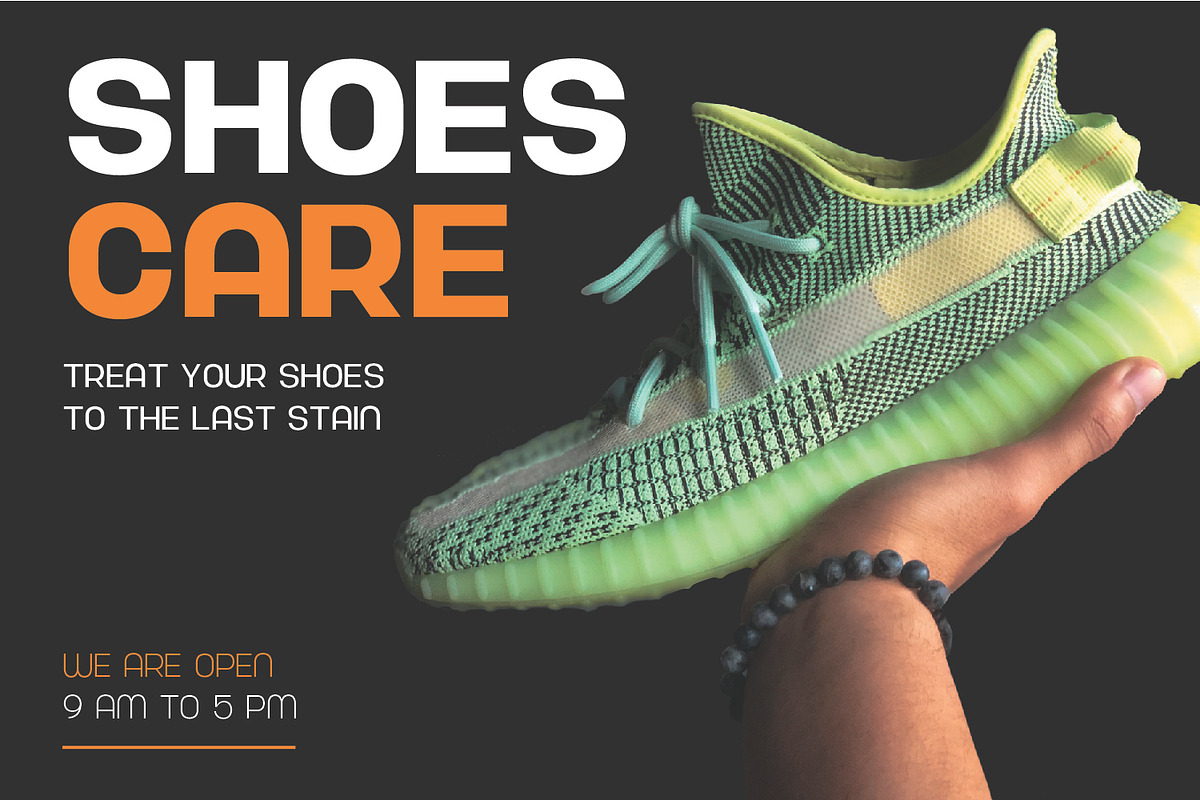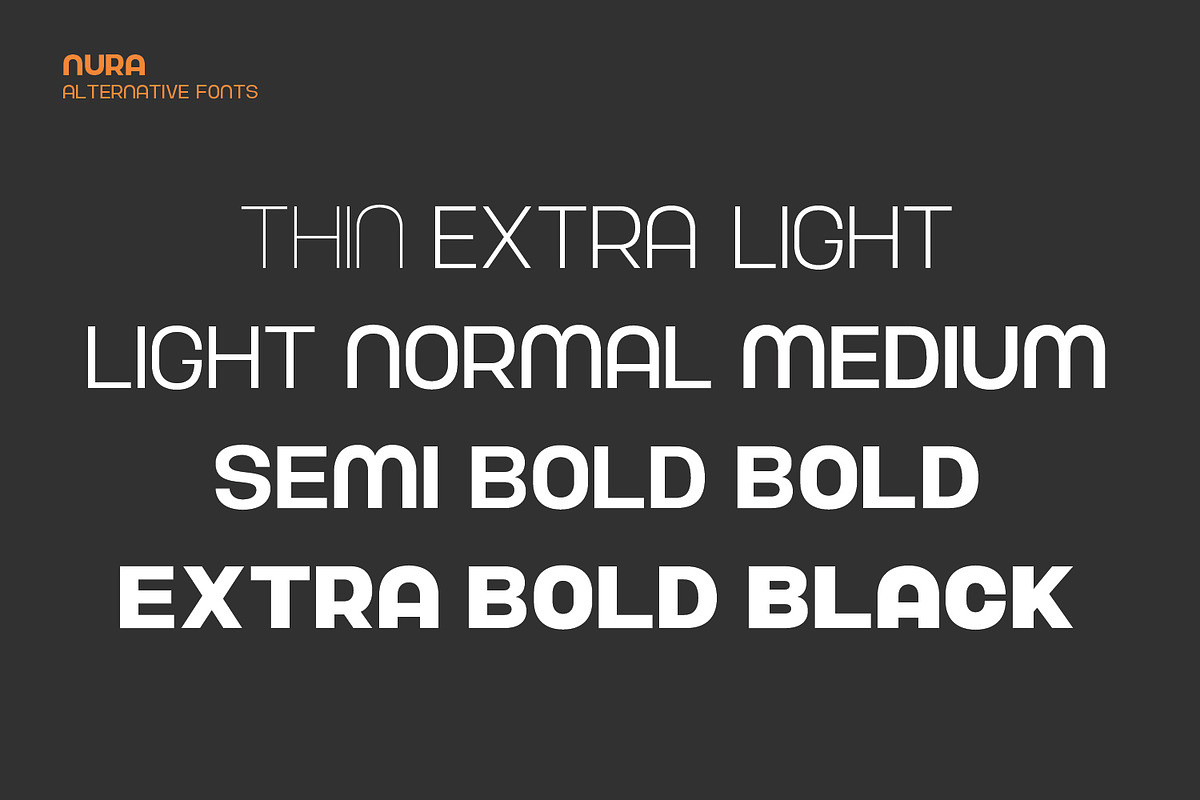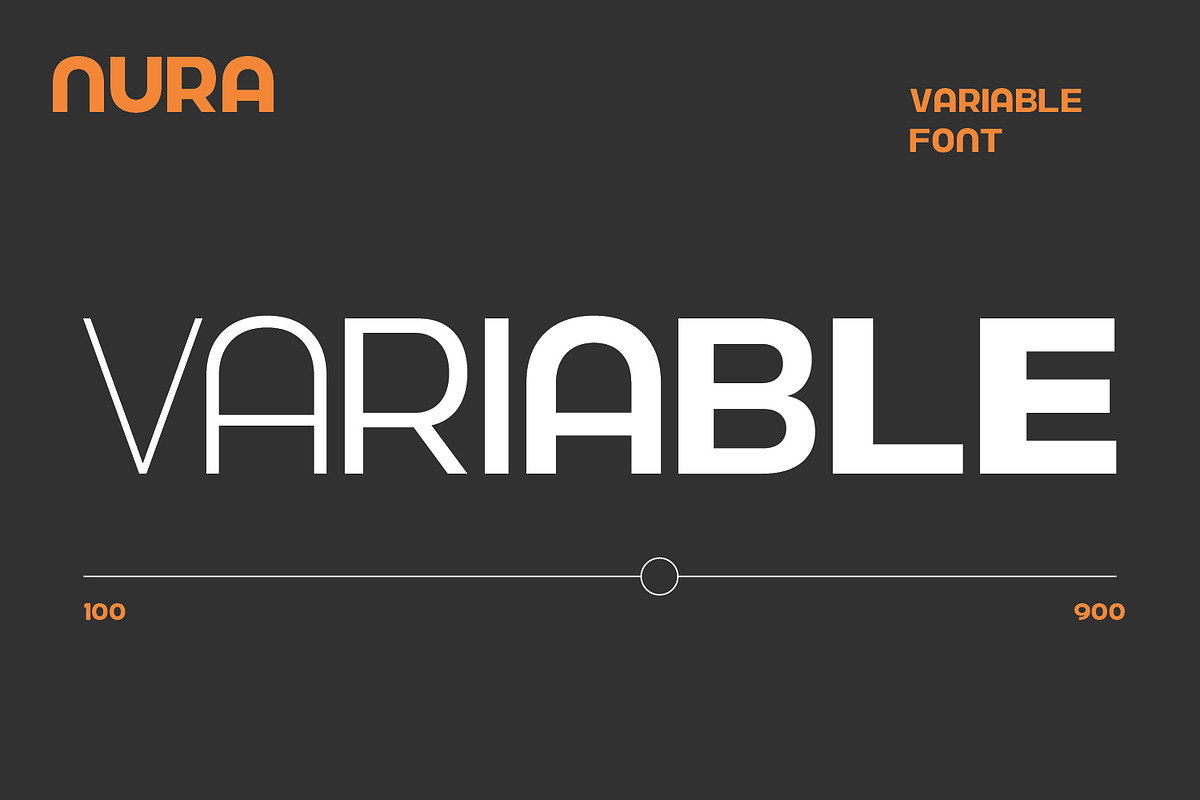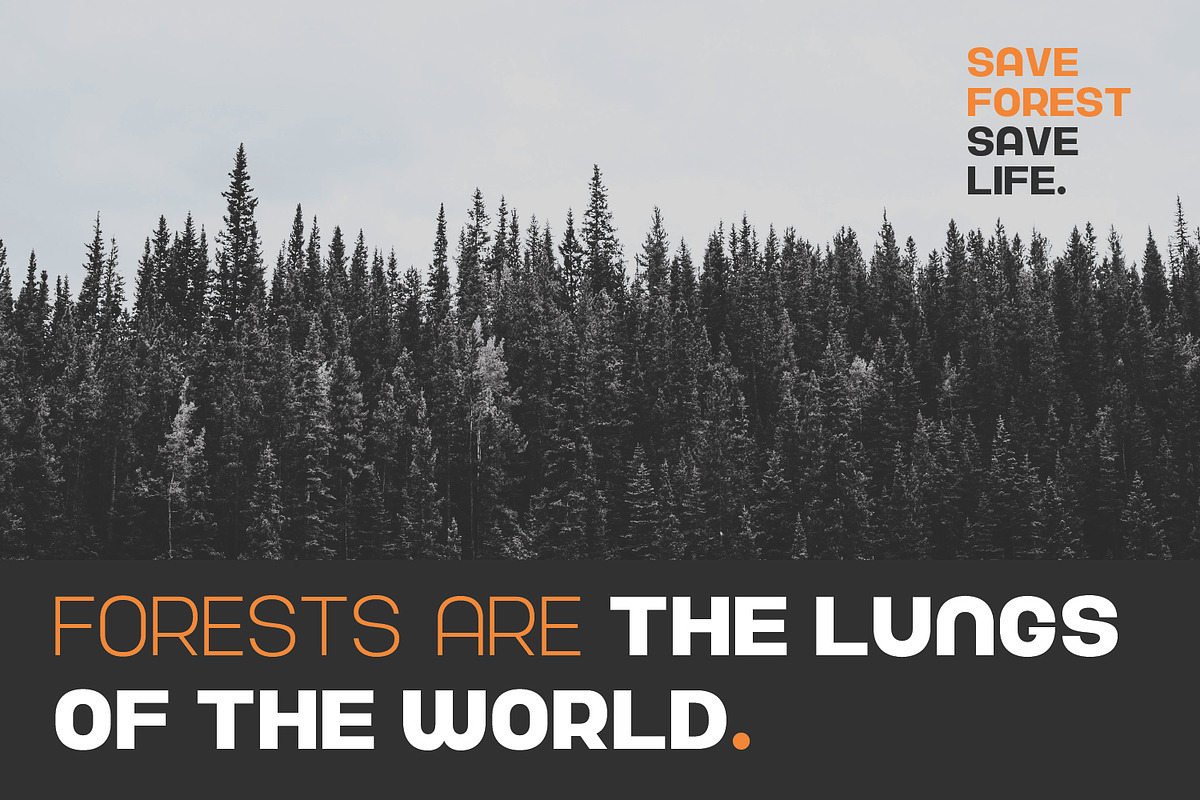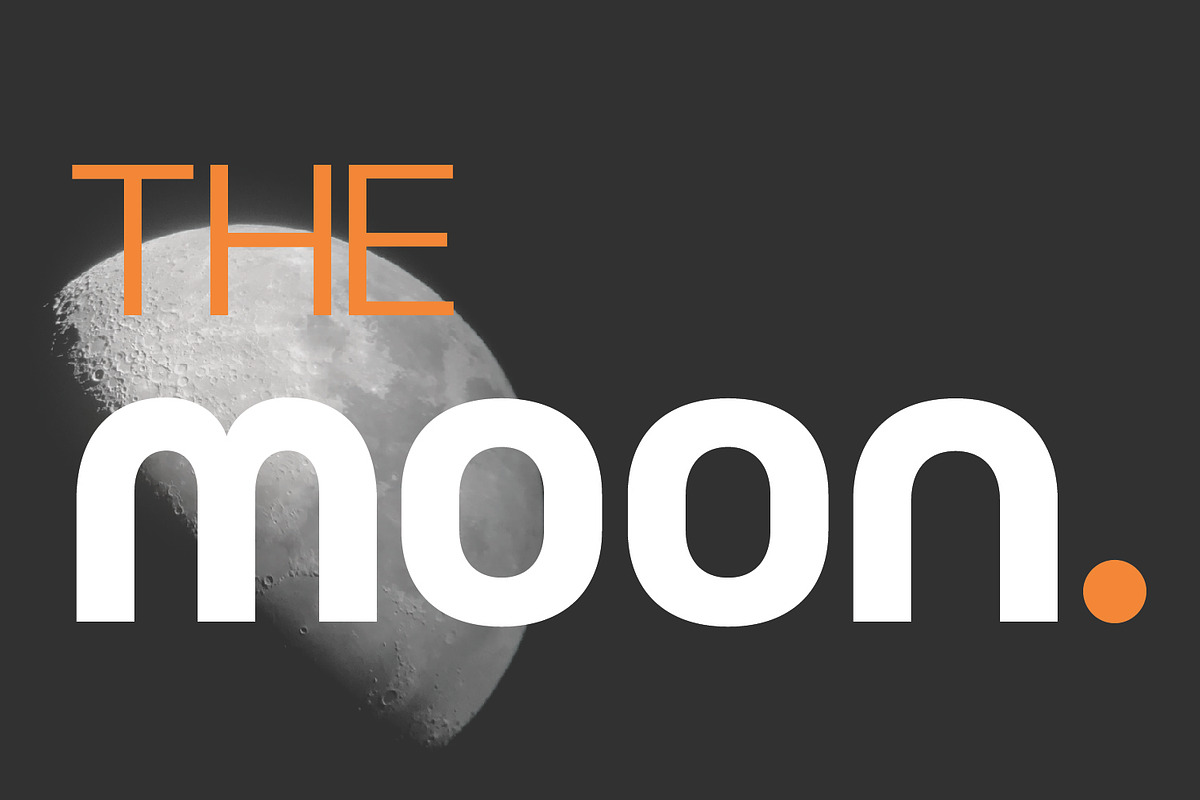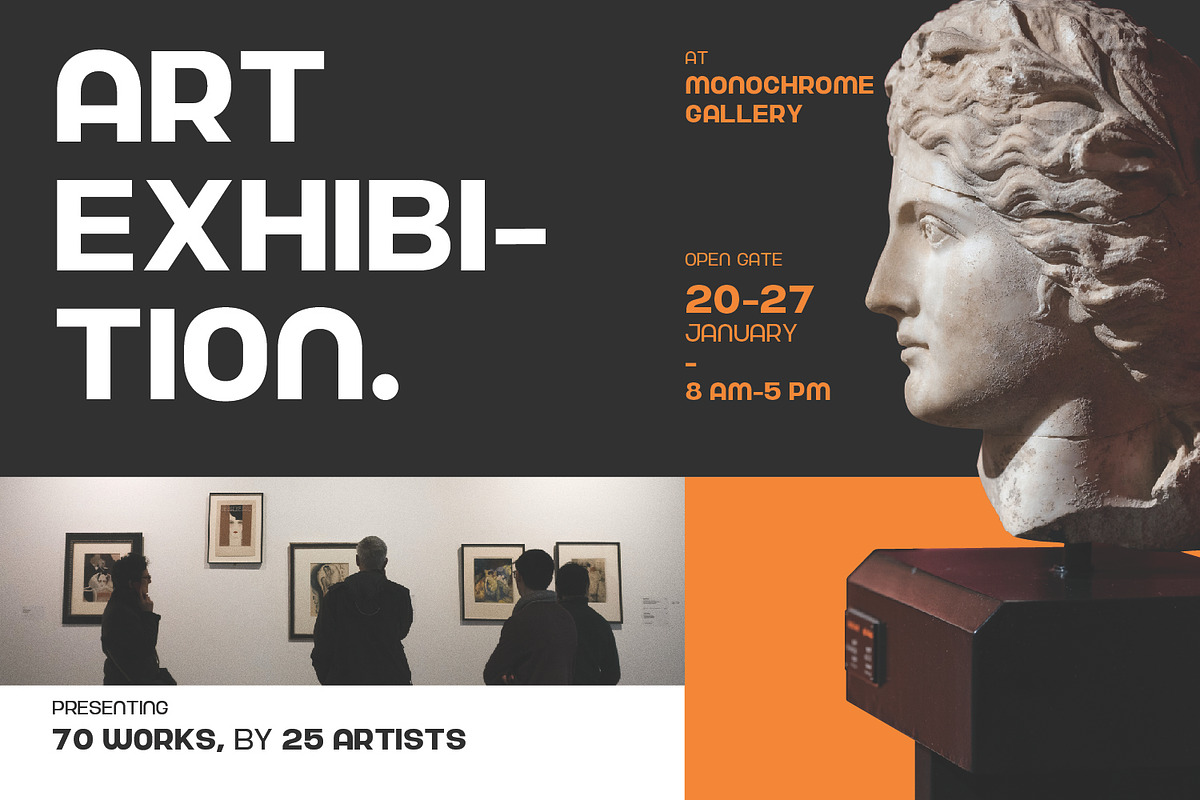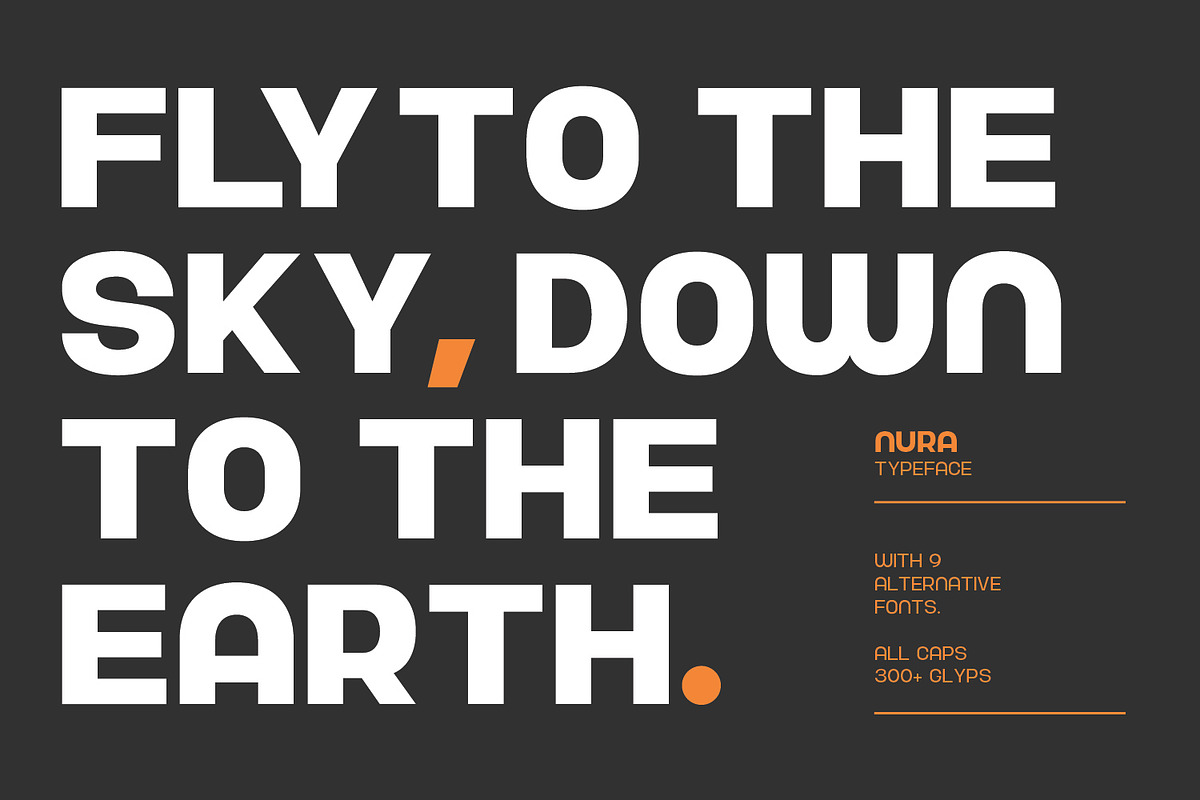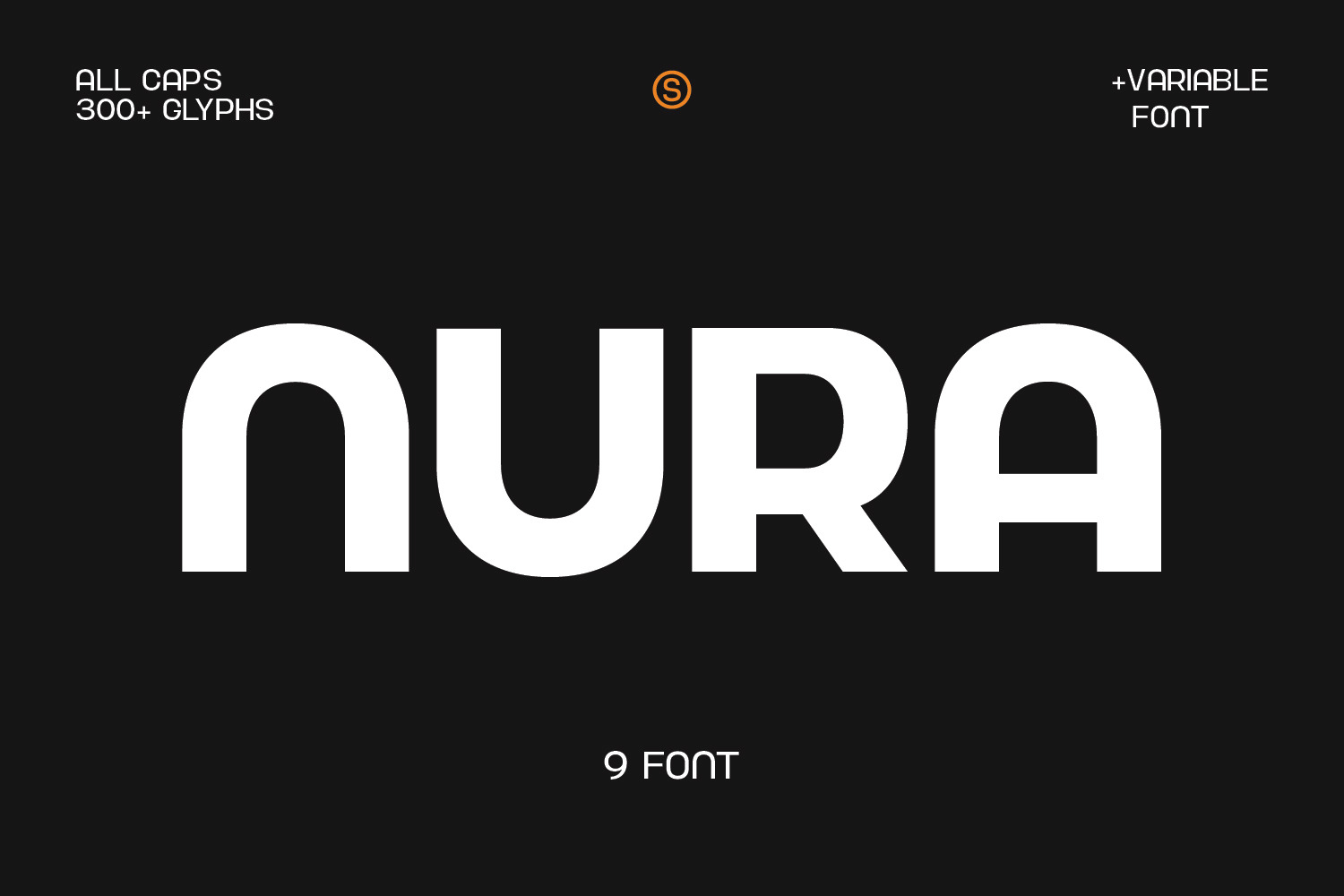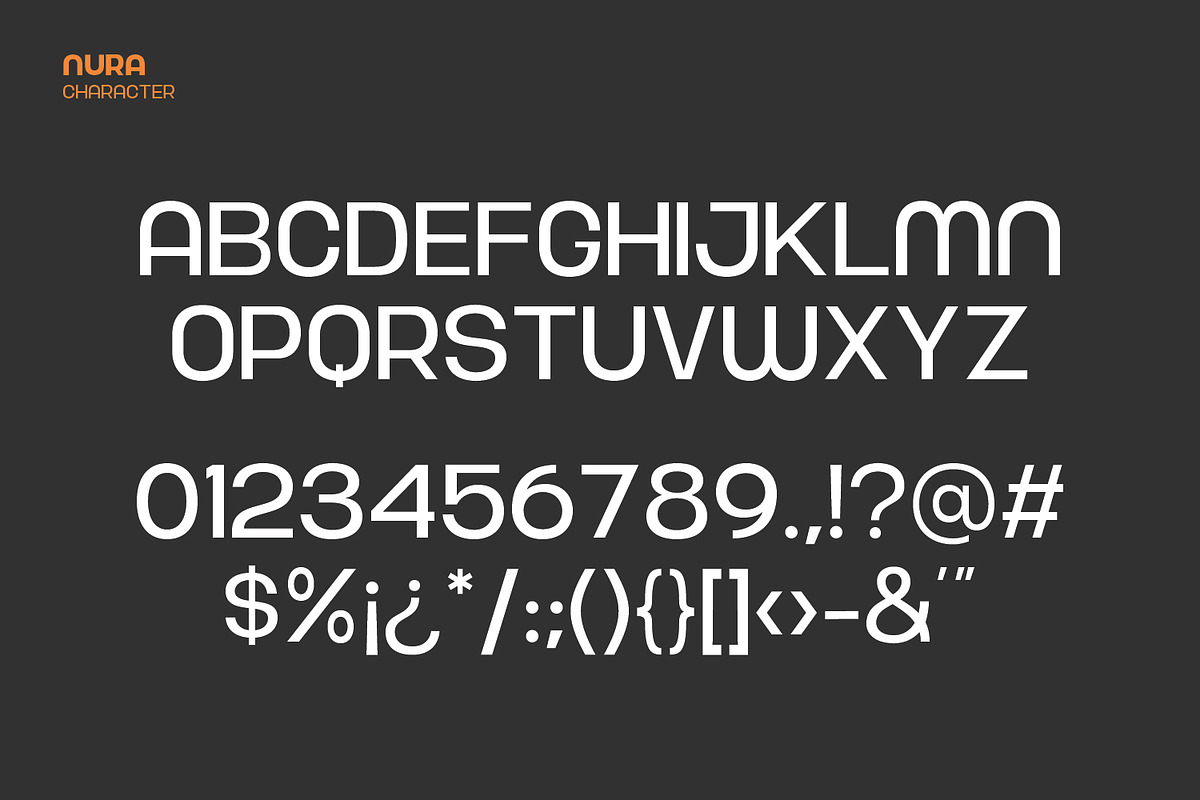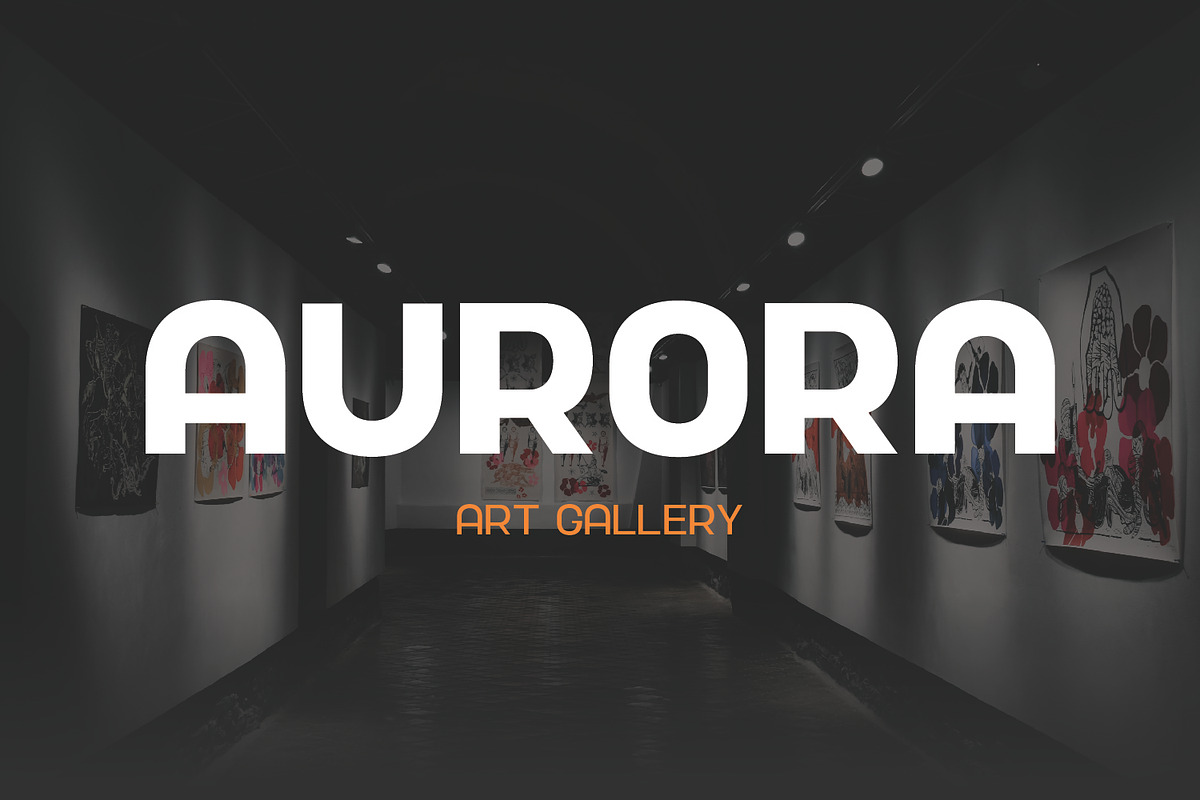
Nura - Variable Font
Introducing the Nura Font Family is the modern Display sans serif family. The Nura Font family comes in various sizes from Thin to Black, giving you the freedom to get creative with this font. With strong characters in the size of Black, it is very suitable for use for sign displays. and other sizes you can use as needed for your project